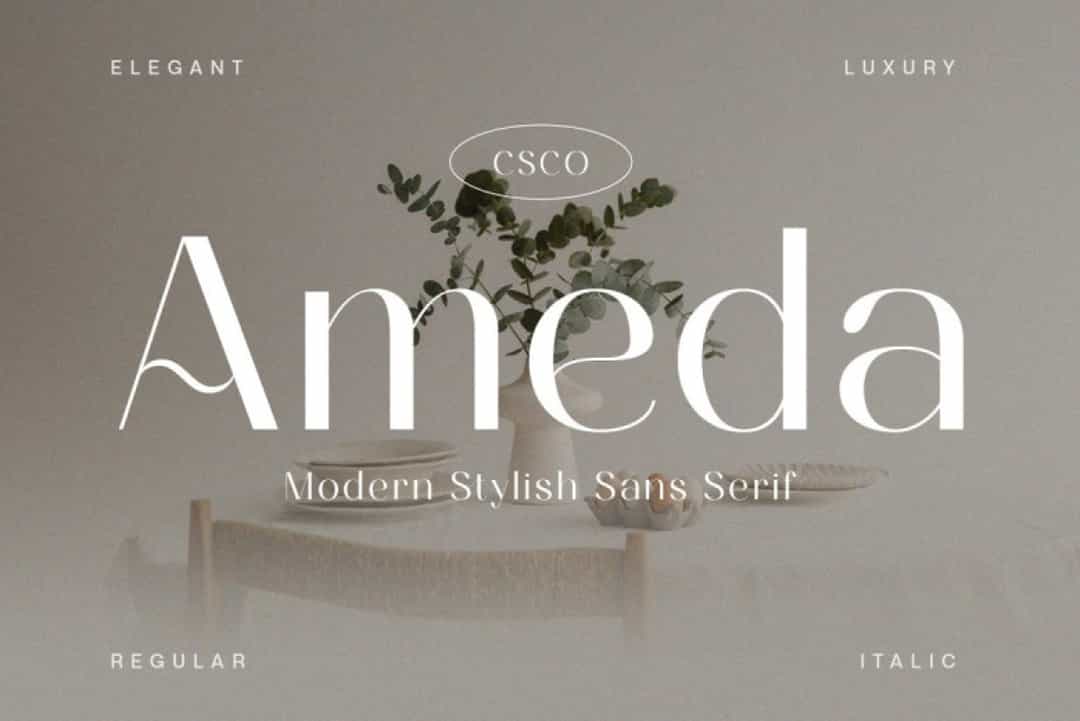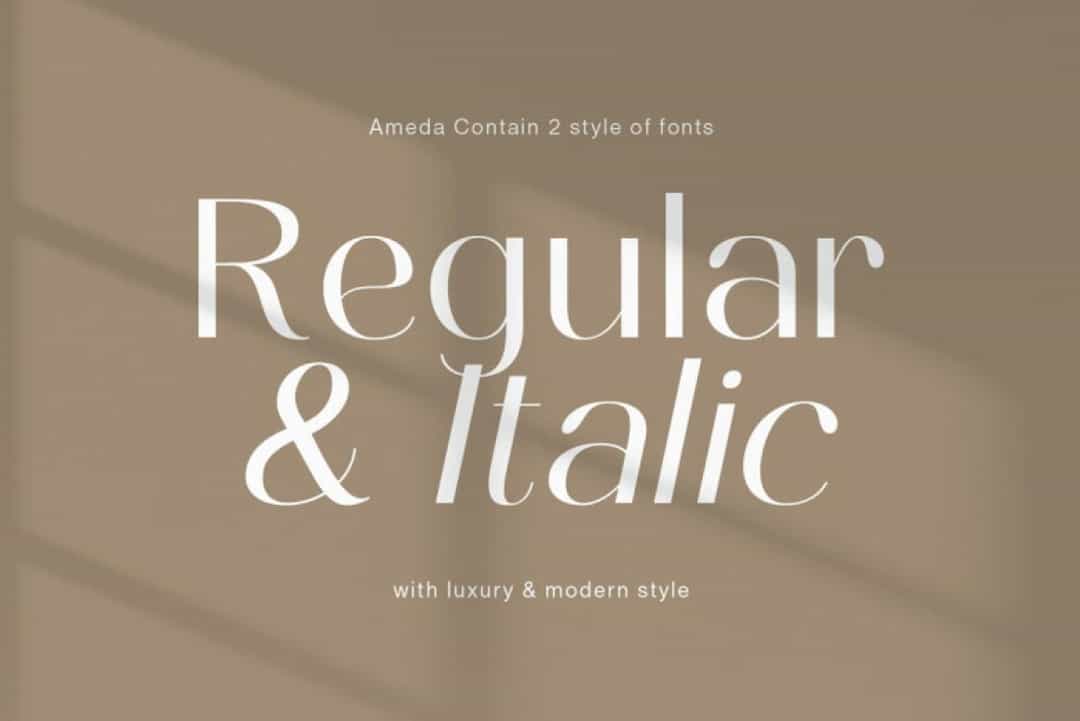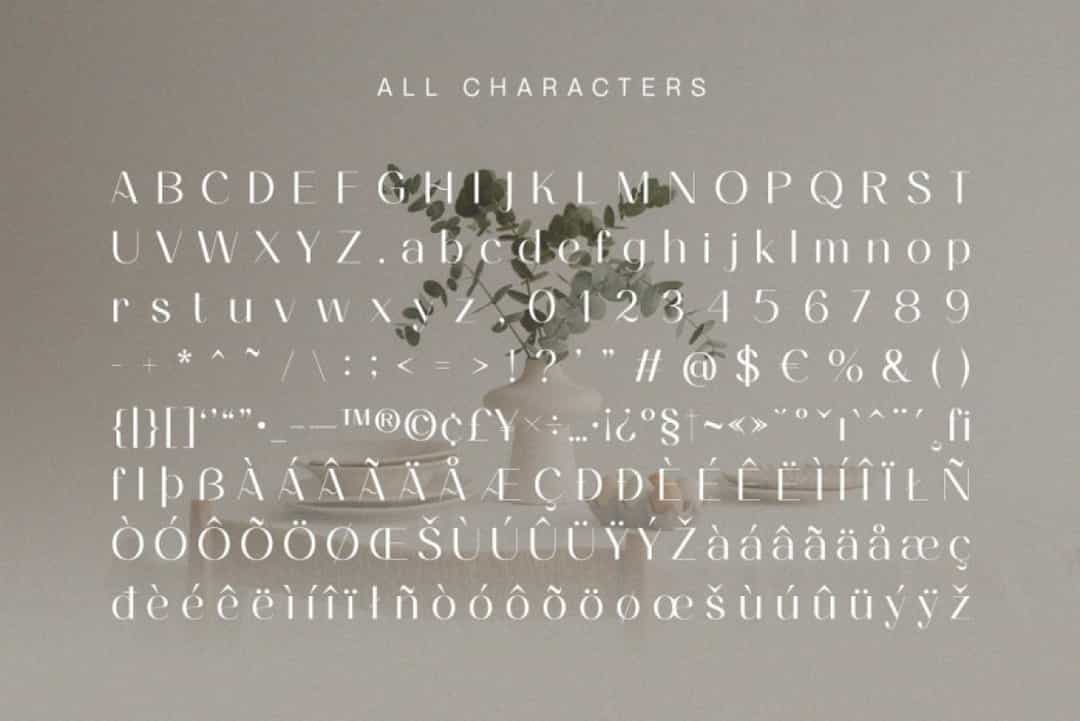
We are delighted to introduce Ameda: a contemporary, elegant sans-serif font with high contrast that exudes sophistication. Add Ameda’s eye-catching style into your designs for added artistic excitement!